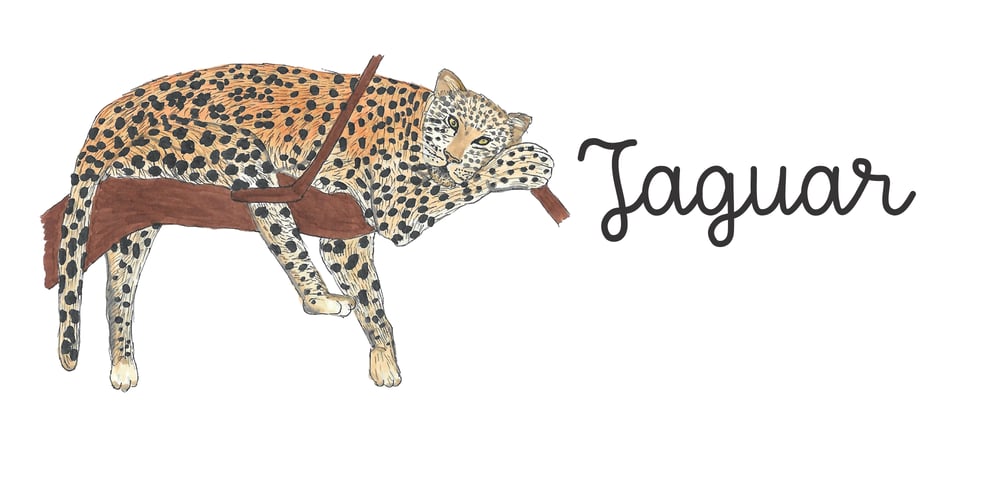
Homework Font Family was designed by Milena Hannud, Milena Hannud and published by DAAZ. Homework contains 1 styles and family package options. Homework font was specially conceived/designed for teaching cursive writing. This resource allows tutors and parents to create worksheets for individual or class teaching. Associated with the dashed version of the font, students can learn and exercise their handwriting abilities. All capital letters, excluding I, F, T and P, link to any following small letter: the sequence of the previous letter stroke always follows the angle of the initial stroke of the subsequent letter. This, in the real world, means that words built with the font can be handwritten without having to lift the pen from the paper (except to cross t and f and dot i and j) or interrupt the writing flow.All the letters are base aligned and all small letters have the same ‘x’ height in order to fit a ruled worksheet.Homework font letter stroke widths are uniform in order to emulate regular pens.Homework font also mimics genuine handwriting, making it useful for online stores gift cards, thank you cards and all applications where a real world feel is desired. The Homework font also performs well on long texts.